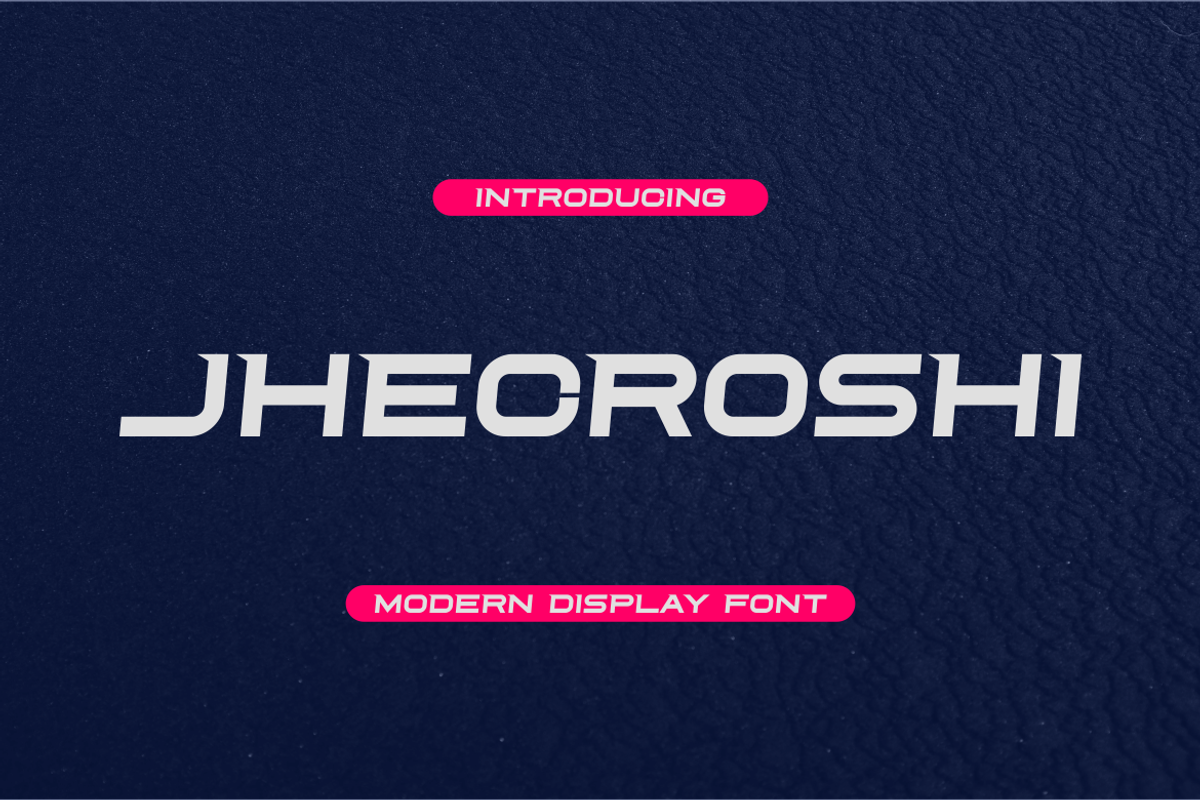
Jhecroshi Font Free Download is a bold, futuristic typeface that blends modern design with edgy, experimental flair. Its sharp angles, clean lines, and distinctive letterforms make it perfect for technology branding, sci-fi projects, esports logos, and cutting-edge digital content. Whether you’re crafting a cyberpunk poster or a sleek app interface, Jhecroshi adds a powerful and forward-thinking vibe to your typography.
This font is built for attention. It delivers high impact in titles, headers, and visual-heavy layouts, both in print and online. Jhecroshi’s unique style ensures your text stands out while maintaining a clean, structured appearance ideal for modern design work.